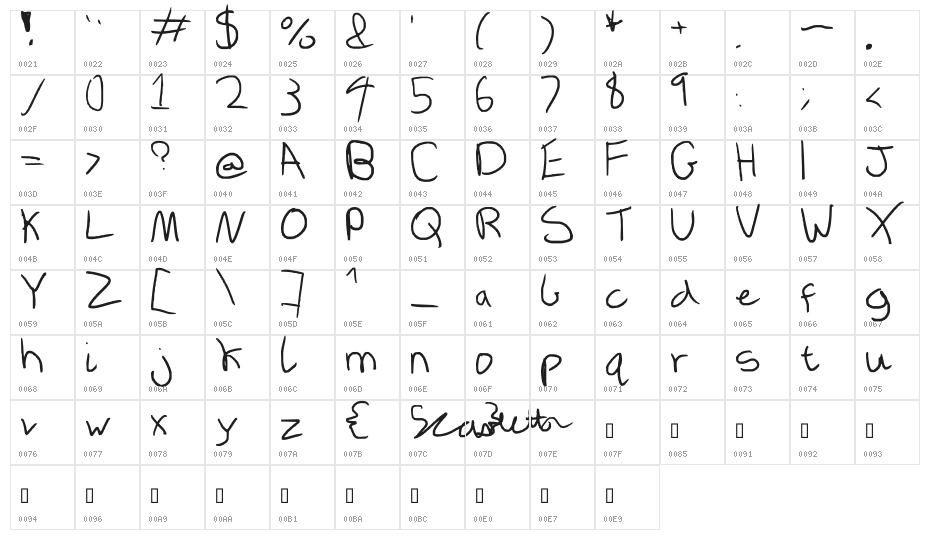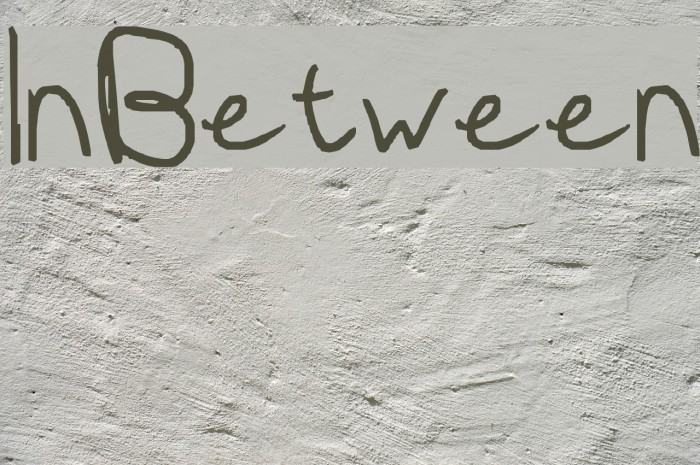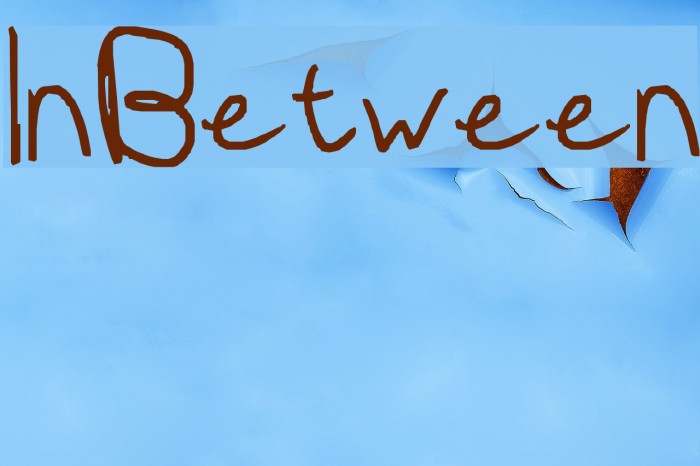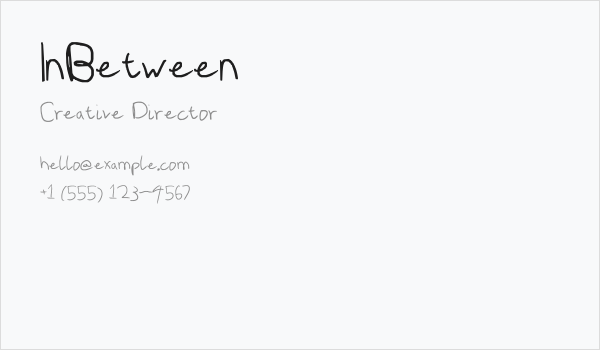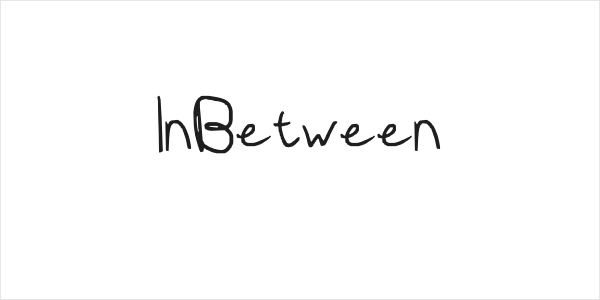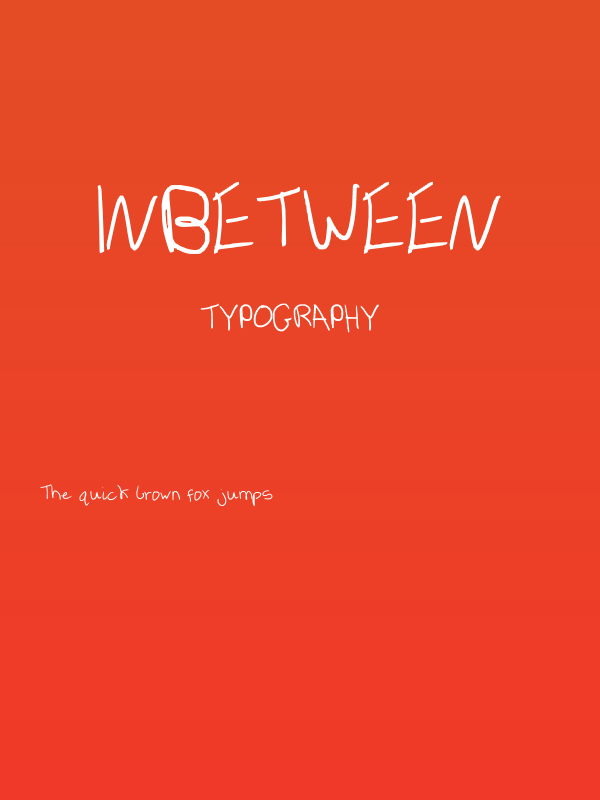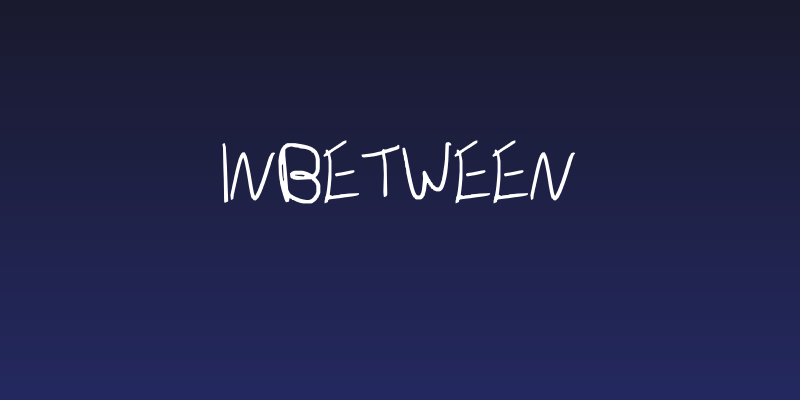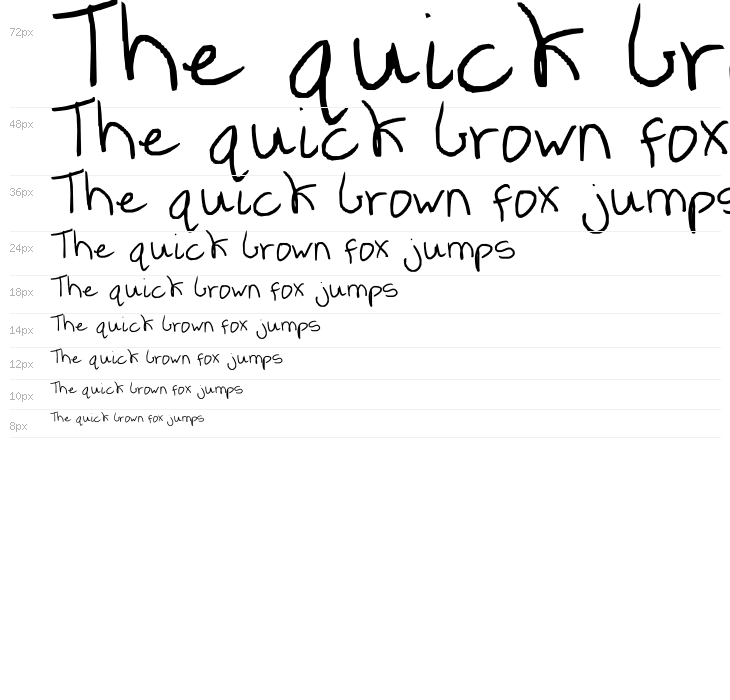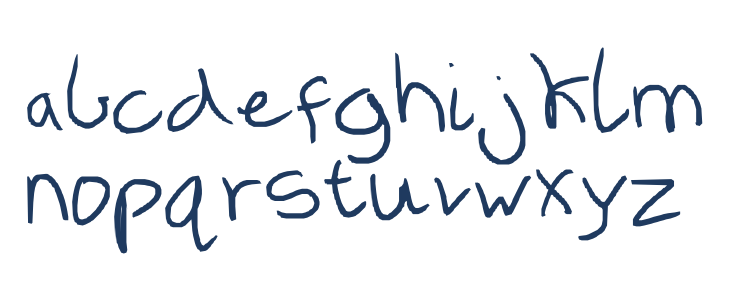
InBetween Font
InBetween Description
This font exhibits a playful and casual handwritten style, characterized by its irregular strokes and informal appearance. The letters have a natural, free-flowing quality, with varying stroke widths that give it a lively and dynamic feel. The uppercase and lowercase letters maintain a consistent style, while the numerals and special characters blend seamlessly with the overall aesthetic. This font's organic and approachable design makes it ideal for projects that require a personal touch or a relaxed vibe.
| Use Case | Headlines, Informal text, Personal projects |
| Proposed Projects | Ideal for greeting cards, personal notes, children's books, and informal branding. |